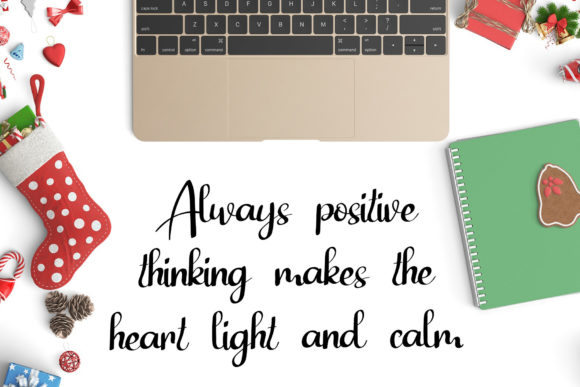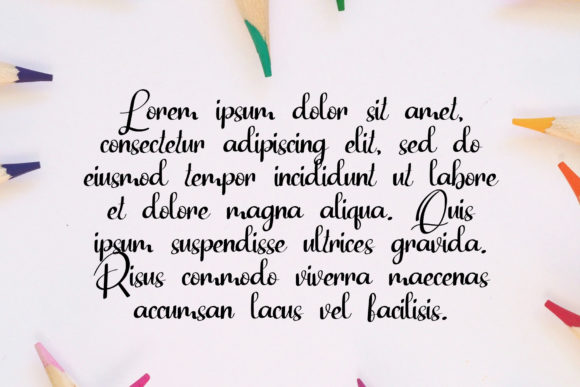
Background Dinosaur Font
db-ku.com - Script & Handwritten -- Background Dinosaur is a unique and elegant font specially designed just for you. This font is made with a professional hand touch and is perfect for your projects.